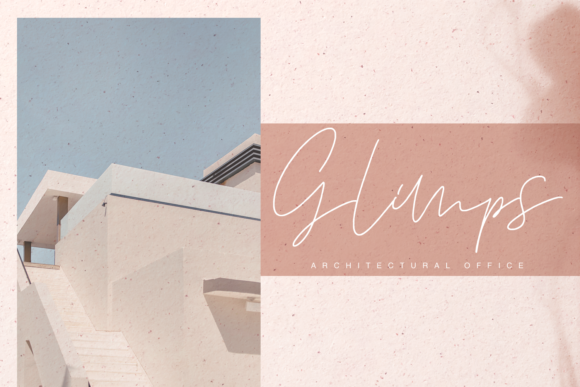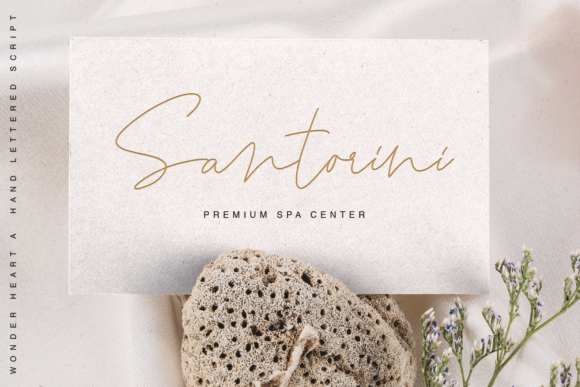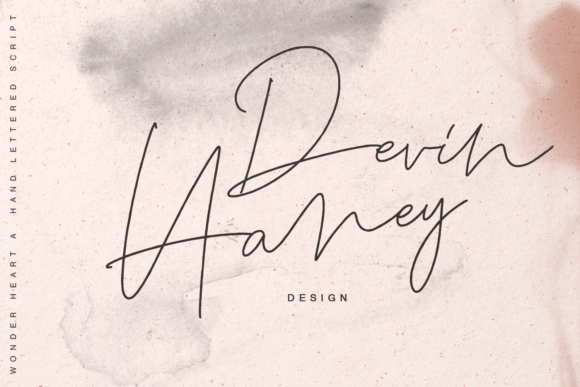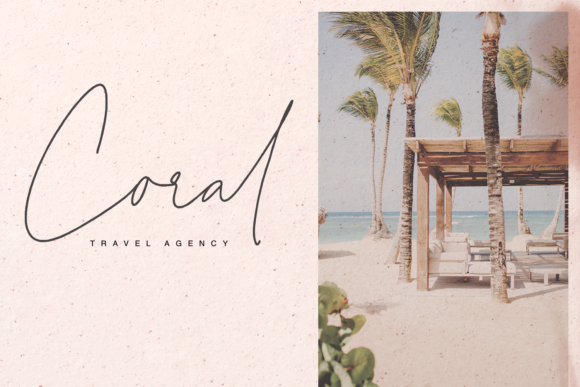
About Wonder Heart Font
“Wonder Heart” is a fashionable and genuine script font that brings a touch of elegance and sophistication to your designs. With its thin letterforms and stylish appearance, this font creates a strong visual impact, instantly capturing the attention of viewers and making your creations stand out.
The simplicity of “Wonder Heart” is one of its greatest strengths. Its clean lines and balanced proportions give it a modern and contemporary look, making it a versatile choice for a wide range of design projects. Whether you’re working on branding materials, logo designs, social media graphics, or any other creative endeavor, this font adds a touch of class and refinement.
The thin letterforms of “Wonder Heart” contribute to its delicate and elegant appearance. Each letter is meticulously crafted to ensure a harmonious flow and a strong visual effect. The strokes are slender, creating a sense of grace and sophistication. This font exudes a subtle beauty that enhances the overall aesthetics of your designs.
The genuine and authentic nature of “Wonder Heart” adds a touch of personality and uniqueness to your creations. It carries a sense of sincerity and originality, making it an ideal choice for projects that require a genuine and heartfelt touch. Whether you’re designing wedding invitations, heartfelt quotes, or personal branding, this font brings a genuine and sincere vibe.
With its fashionable and thin lettered style, “Wonder Heart” adds a touch of sophistication and refinement to any design project. It effortlessly elevates the visual appeal of your creations, making them more appealing and memorable. Let the charm of “Wonder Heart” captivate your audience and leave a lasting impression.
In conclusion, “Wonder Heart” is a fashionable and genuine script font that instantly enhances the visual impact of your designs. Its thin letterforms, simplicity, and genuine nature make it a versatile choice for a variety of design projects. Embrace the strong visual effect and genuine charm of “Wonder Heart” to create stunning and appealing designs that leave a lasting impression.